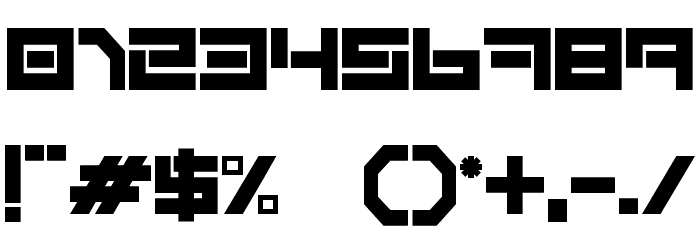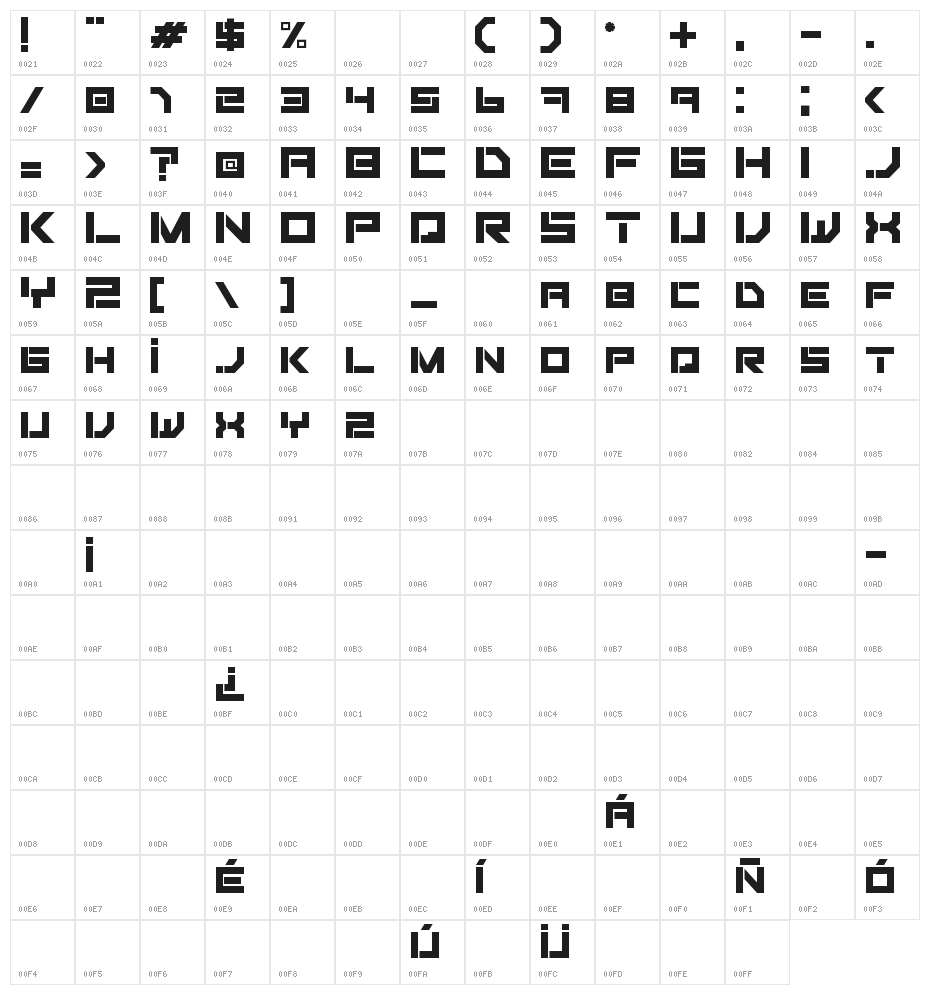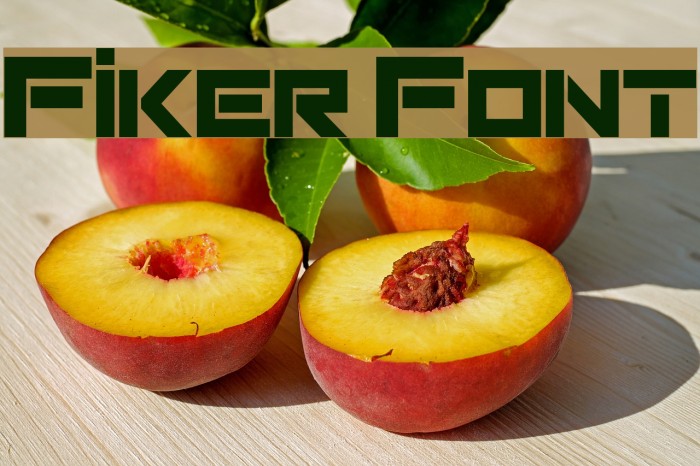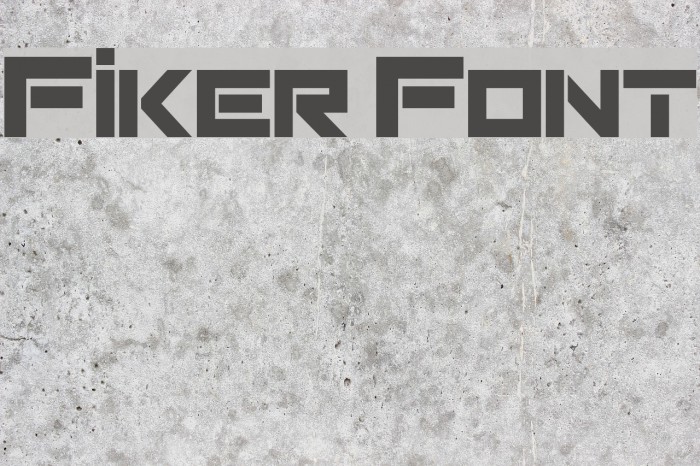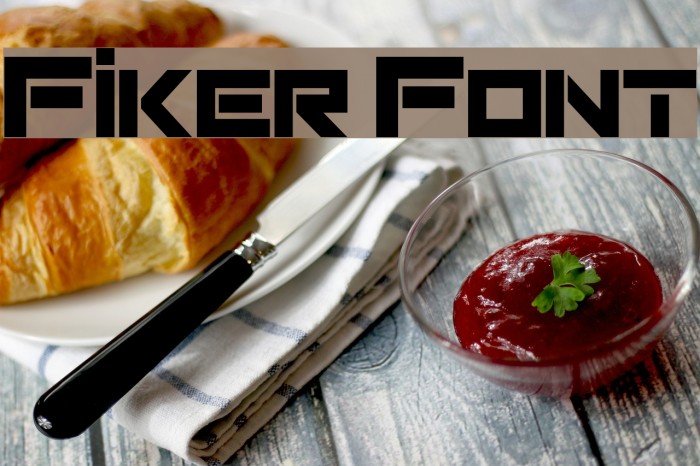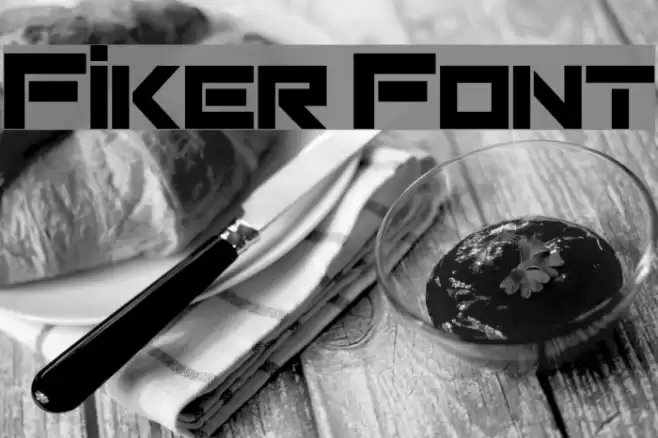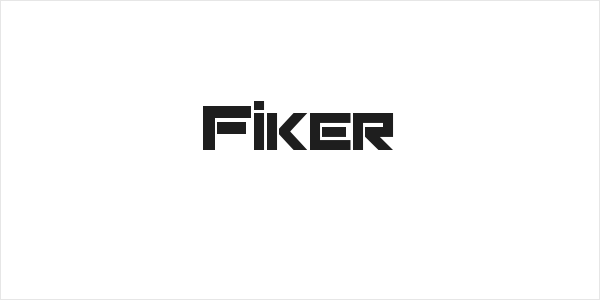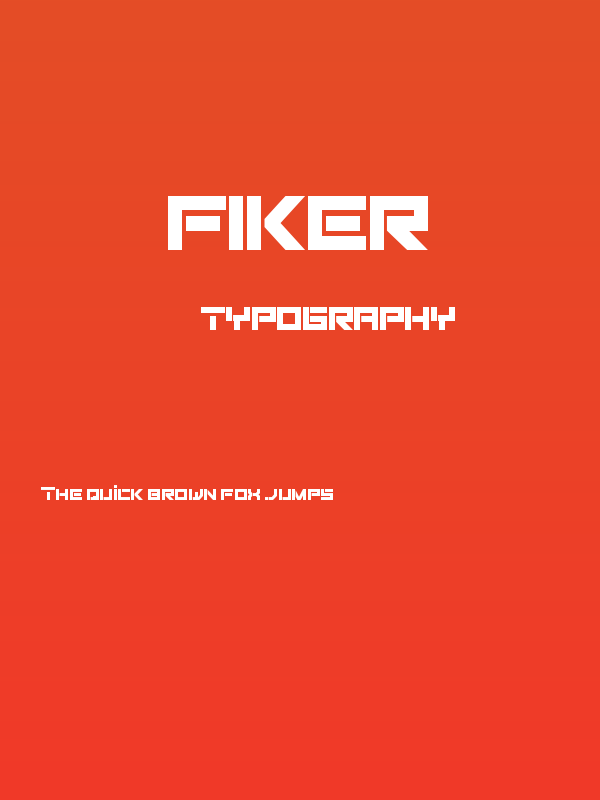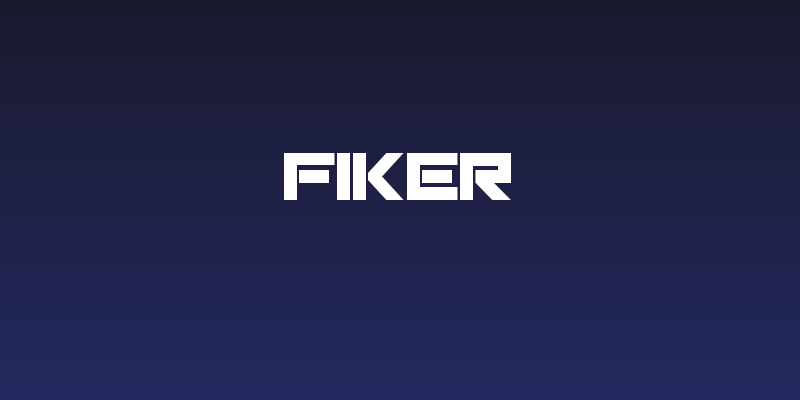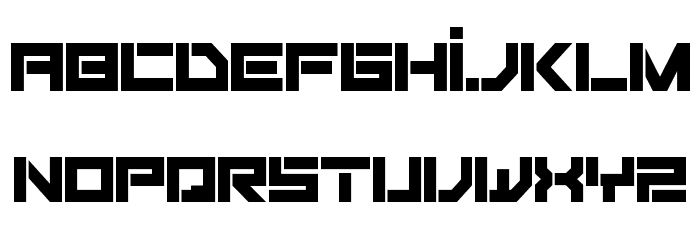
Fiker Font
Fiker Description
This font features a bold, geometric design with a futuristic aesthetic. Each character is constructed with sharp angles and straight lines, creating a blocky and robust appearance. The uppercase and lowercase letters maintain a consistent style, emphasizing uniformity and precision. The numbers and special characters follow the same design principles, ensuring a cohesive look across all elements. The font's distinct style makes it suitable for projects that require a modern and edgy feel.
| Proposed Projects | Ideal for technology branding, video game titles, sci-fi posters, and modern logos. |